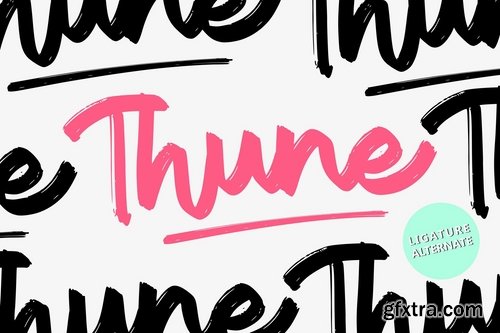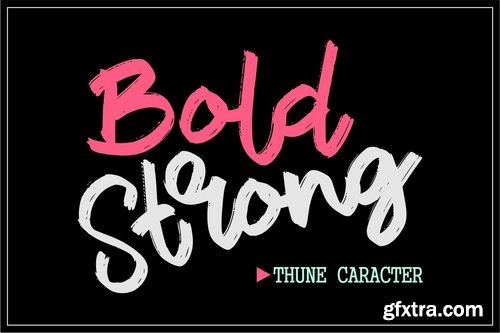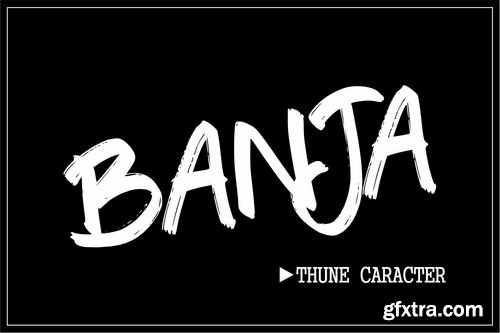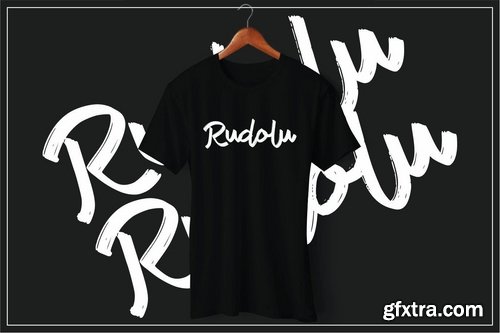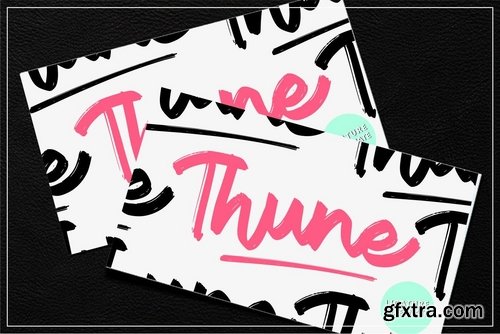
Thune | Bold Brush Font with a calligraphy style, So beautiful on invitation like greeting cards, branding materials, business cards, quotes, posters, and more!
The alternative characters were divided into several Open Type features such as Stylistic Sets, Stylistic Alternates, Contextual Alternate, SWASH and Ligature. The Open Type features can be accessed by using Open Type savvy programs such as Adobe Illustrator, Adobe InDesign, Adobe Photoshop Corel Draw X version, And Microsoft Word. And this Font has given PUA unicode (specially coded fonts). so that all the alternate characters can easily be accessed in full